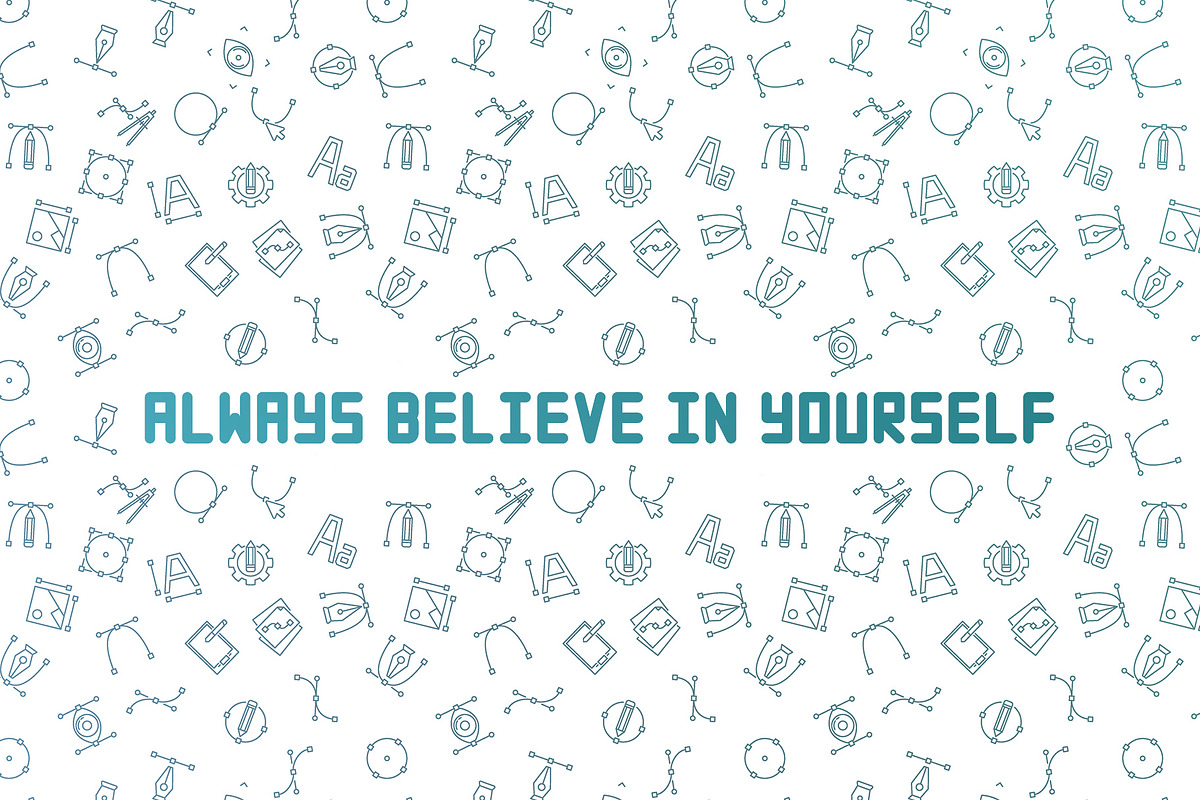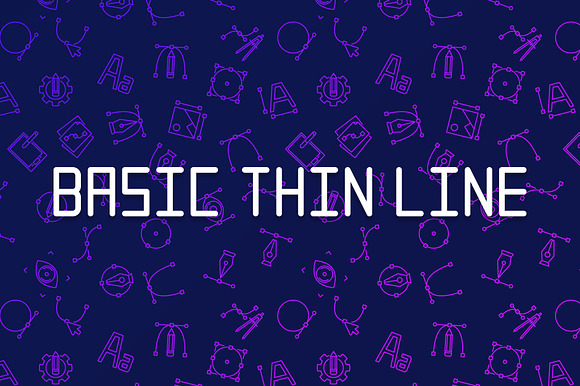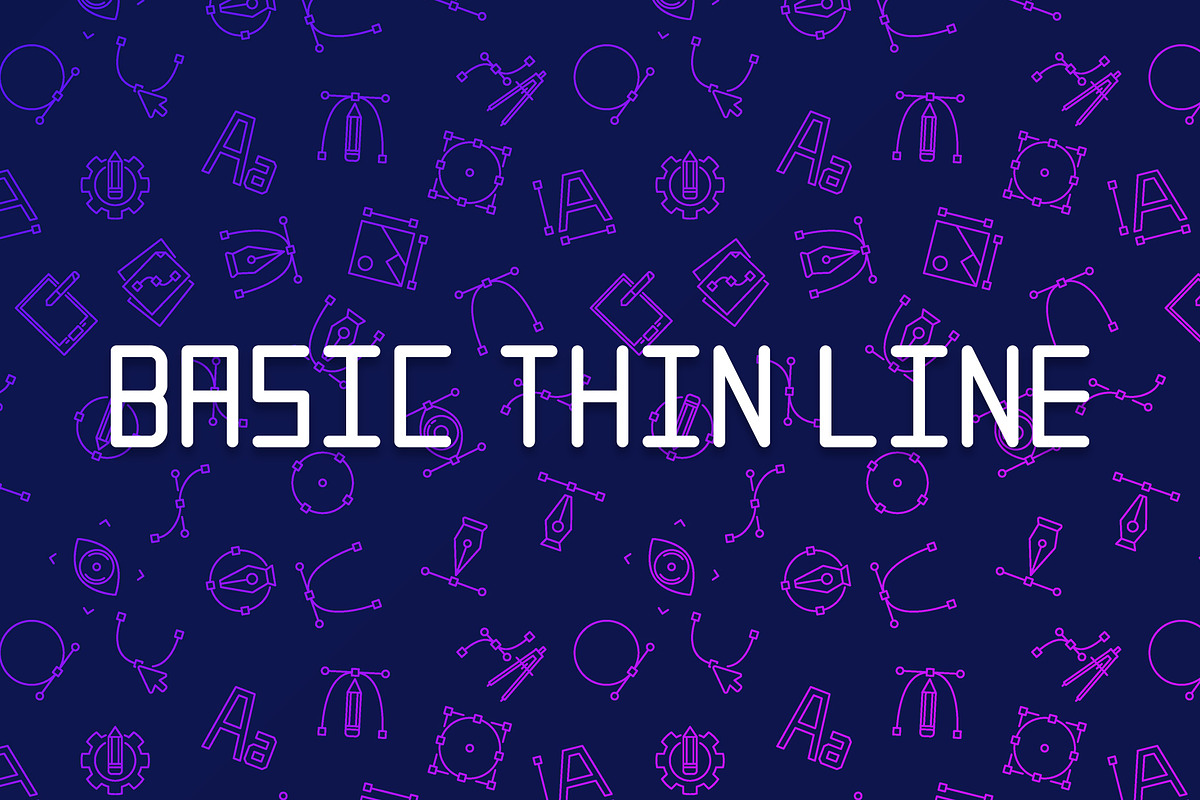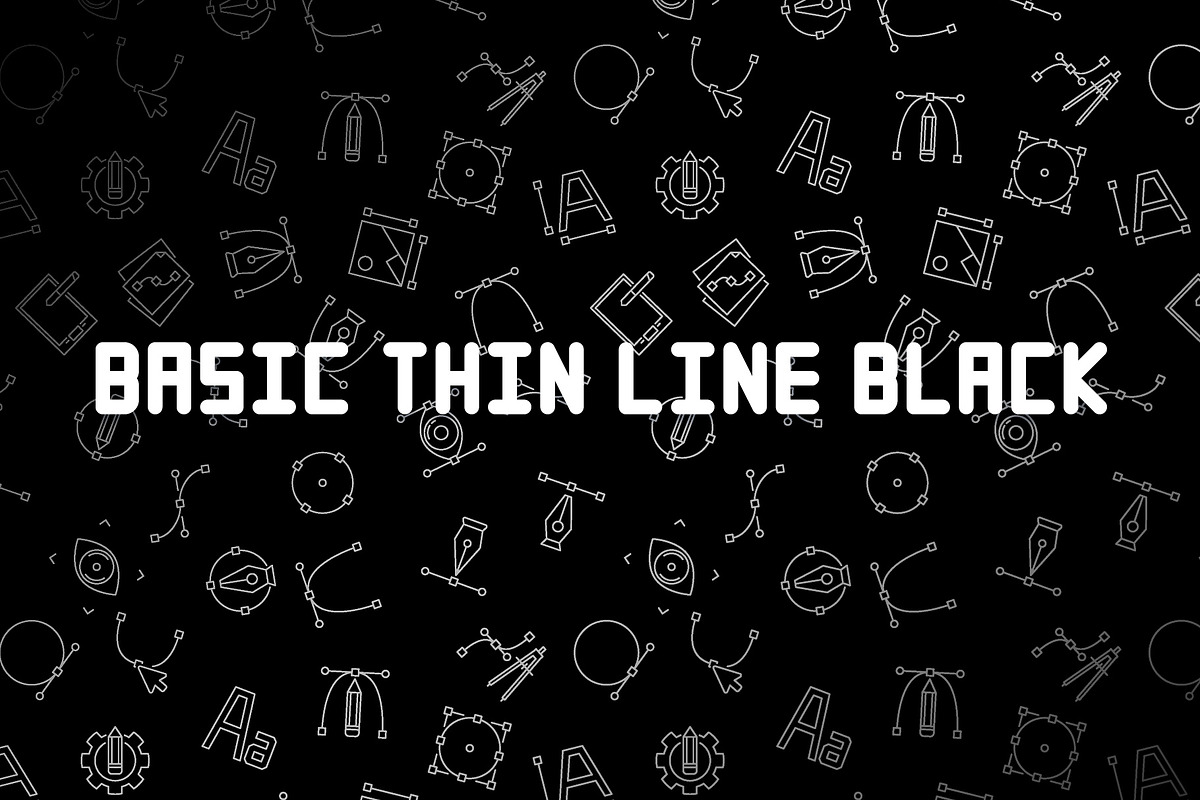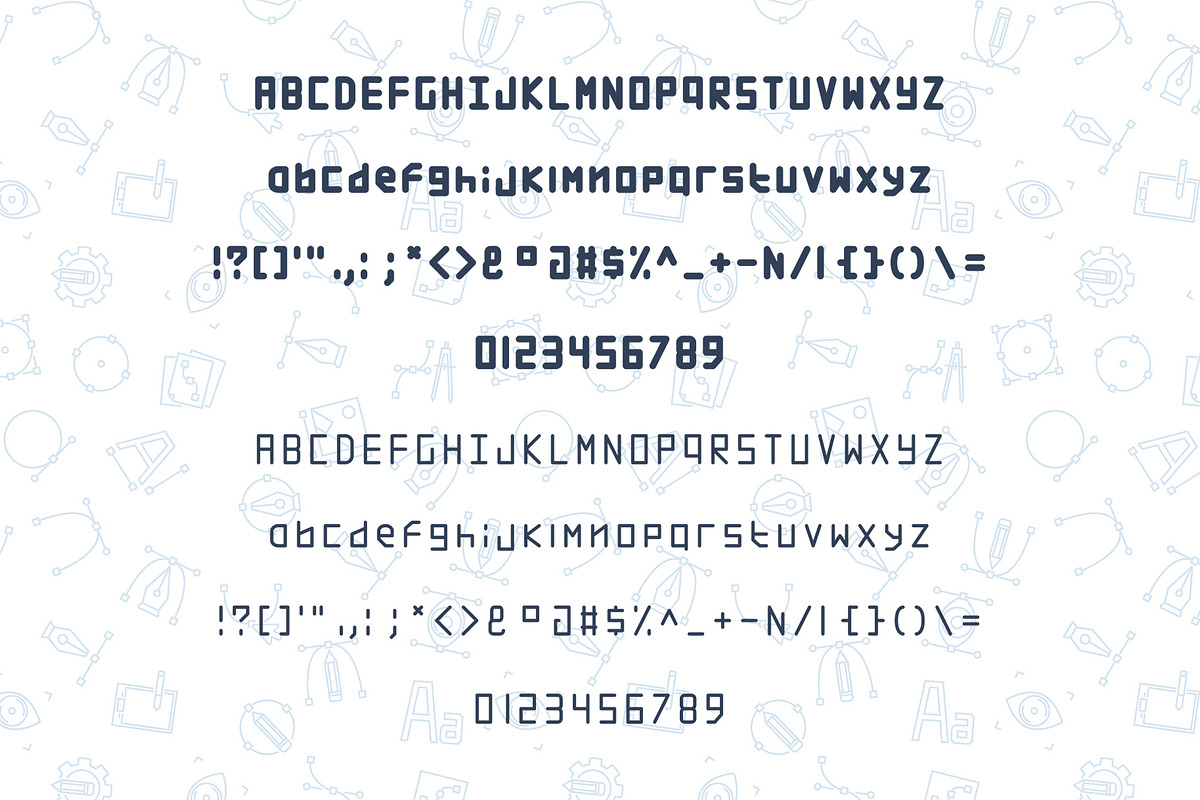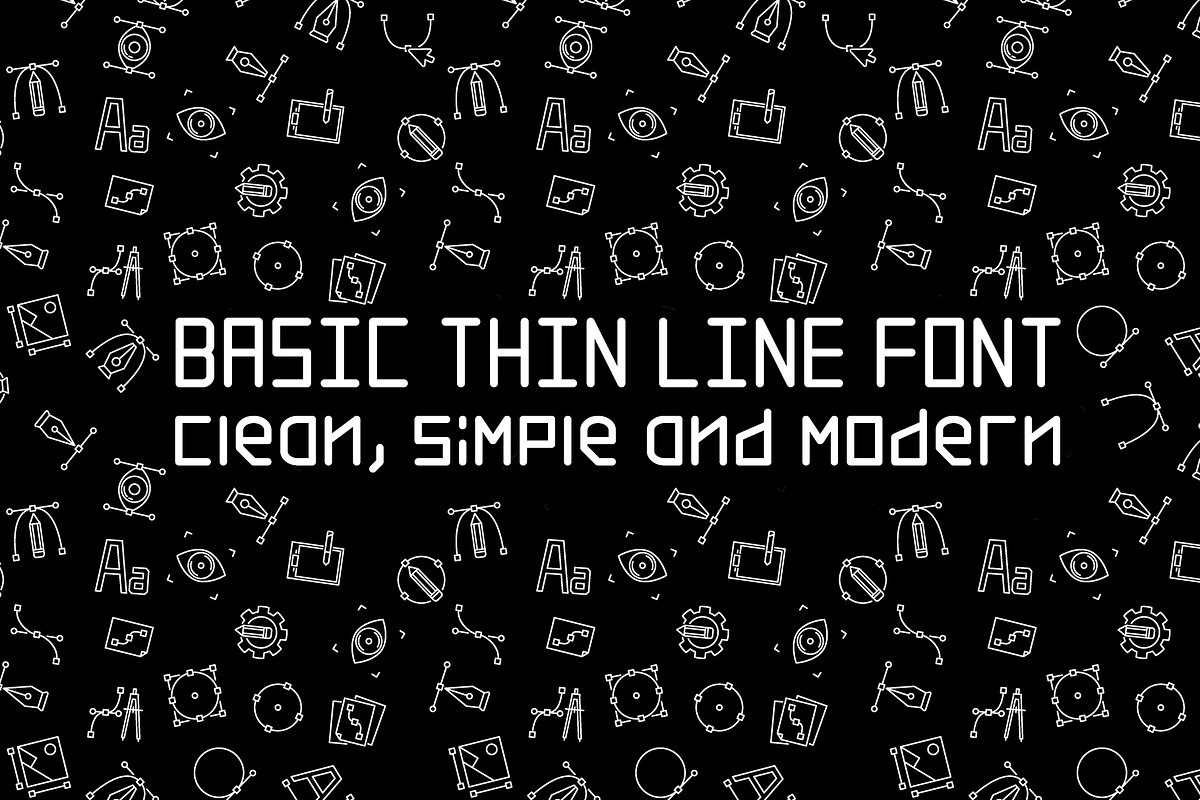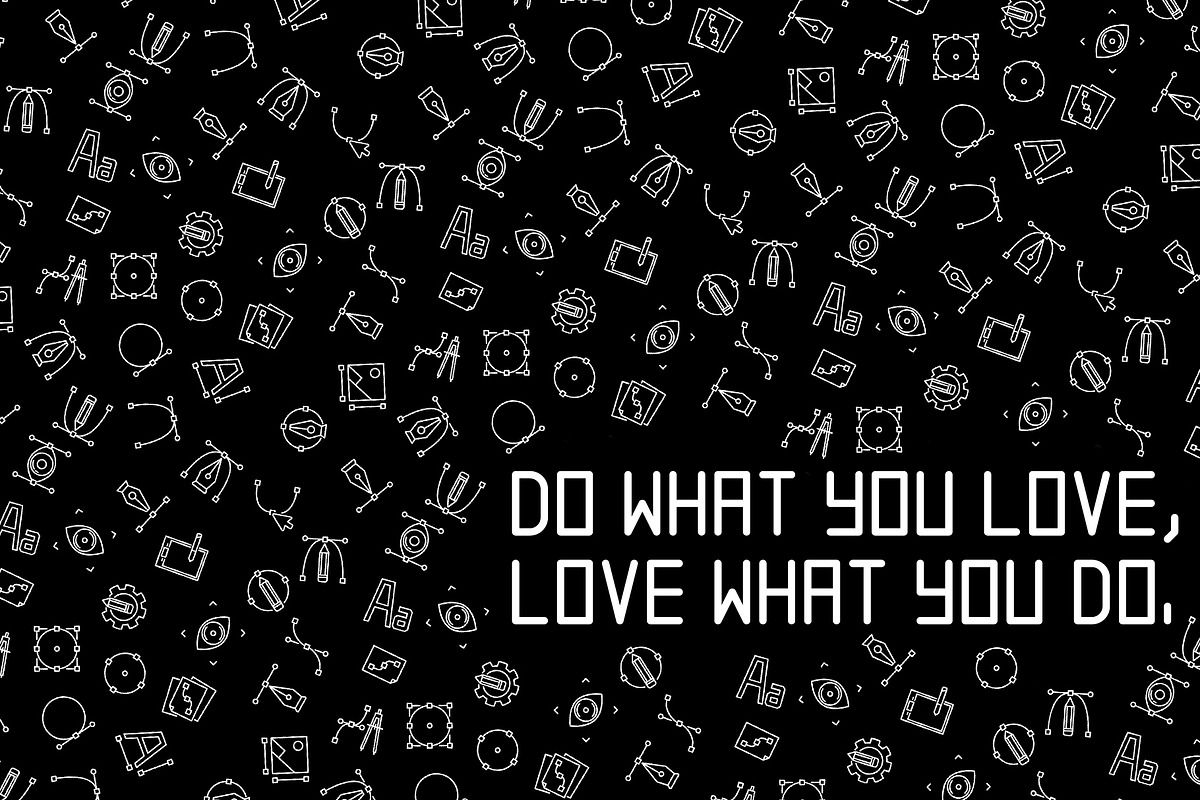
Basic Thin Line Font
Basic Thin Line Font is an unusual simple modern sans serif font designed by VenomousVector.
Note: This font contains only latin characters (all available characters you can see on the screenshot)
Basic Thin Line Font by VenomousVector fits naturally into Branding, posters, packaging, typography.